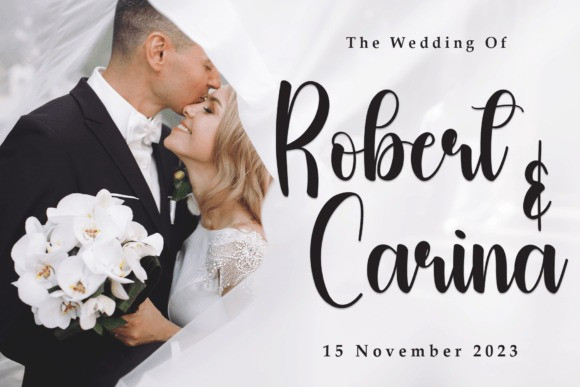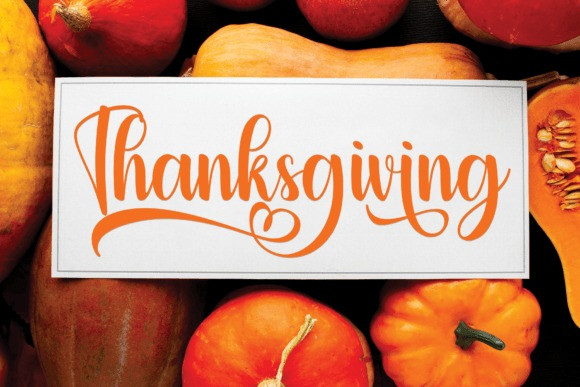
Christmas Featuring Font
Christmas Featuring Font is a festive handwritten font that captures the spirit of the season with its playful and charming style. Perfect for adding a touch of warmth to your holiday projects, this font brings a cozy and joyful feel to any text. Whether you’re creating greeting cards, festive banners, or holiday-themed designs, Christmas Featuring adds a delightful handwritten flair that spreads the joy of the season.